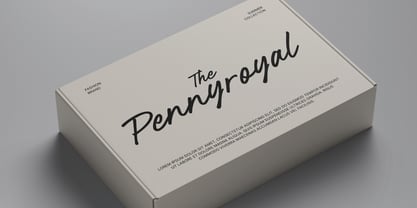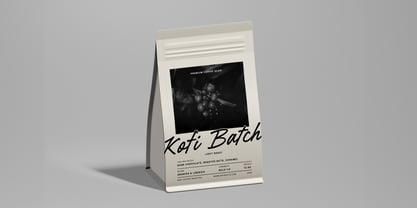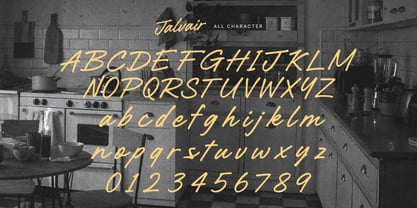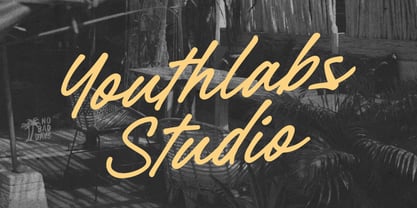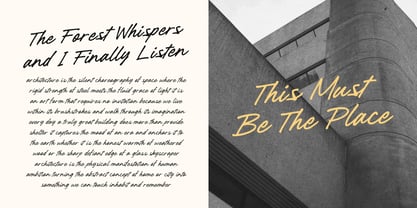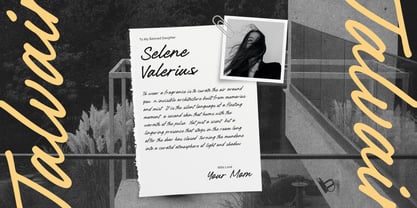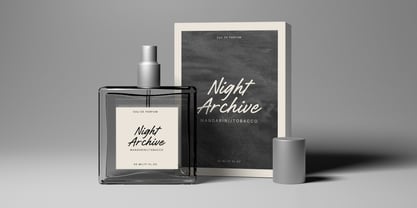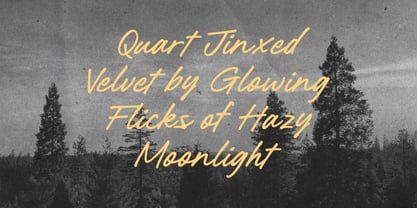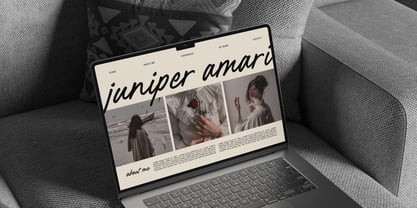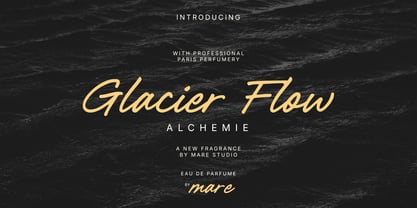
Jalvair
The Jalvair Font Family was designed by Fathi Al Ghazi and published by Youthlabs. Jalvair contains 1 styles. More about this family
Jalvair is a modern handwritten font that captures the effortless charm of everyday penmanship. Created by Youthlabs Studio, this typeface balances thick, casual strokes with a rhythmic, organic flow that feels instantly familiar and warm. Unlike rigid scripts, Jalvair offers a relaxed aesthetic that is perfect for storytelling and human-centric design. Whether you are creating evocative editorial layouts, heartfelt social media content, vintage-inspired labels, or modern lifestyle branding, Jalvair provides a cozy yet contemporary touch that makes your message feel personal and approachable.